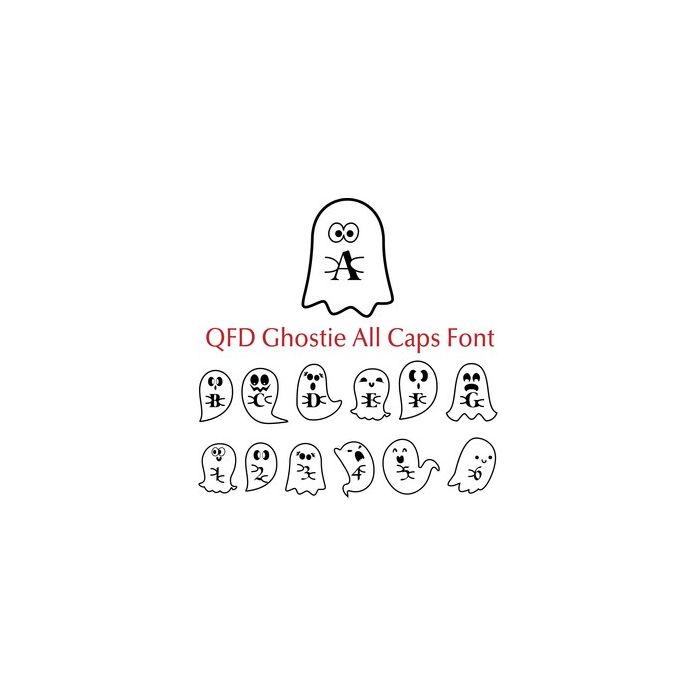
Each one is different! You can use these monograms on gift tags, cards, pillows, invitations, wall art, t-shirts, mugs and anything else you can think of. Follow the Silhouette instructions for installing fonts and have fun!